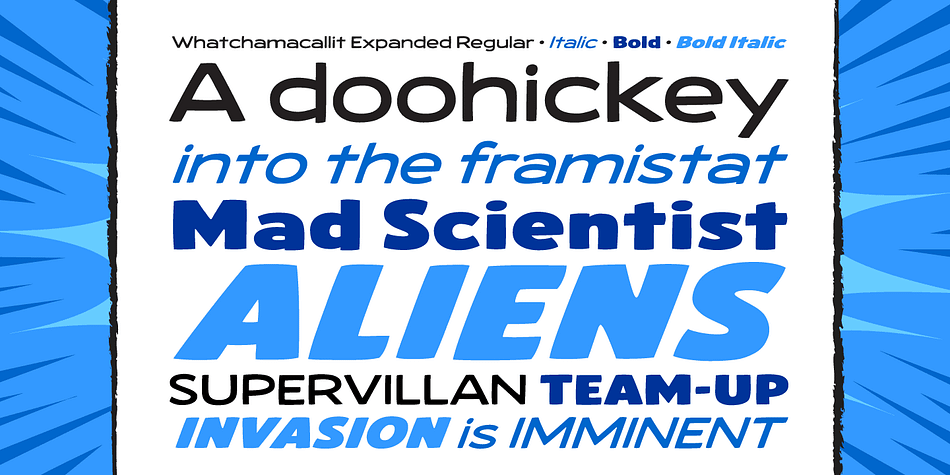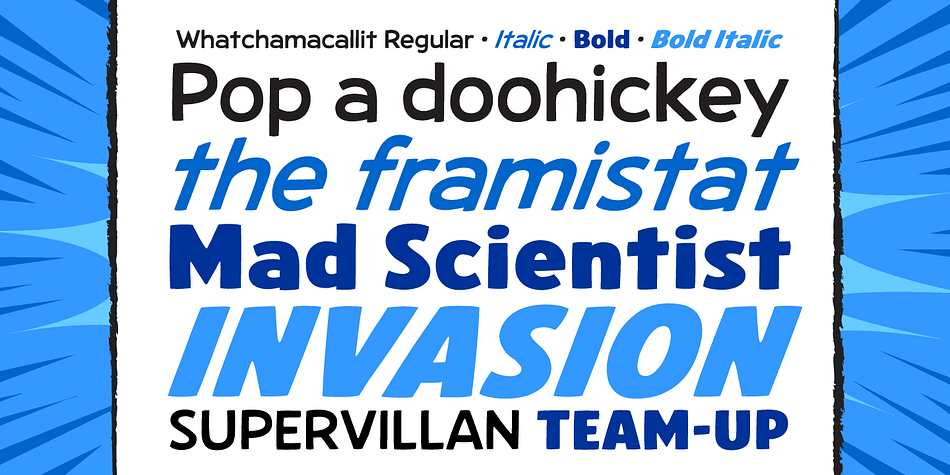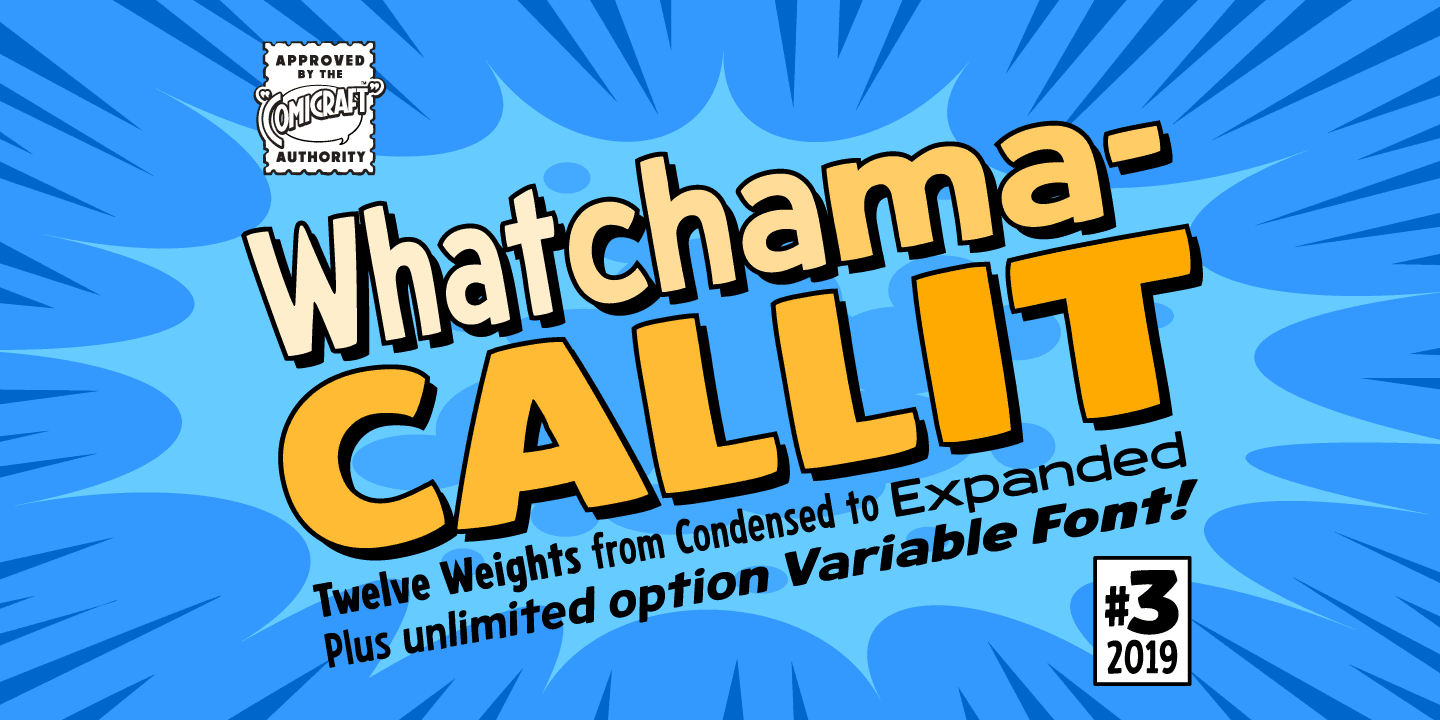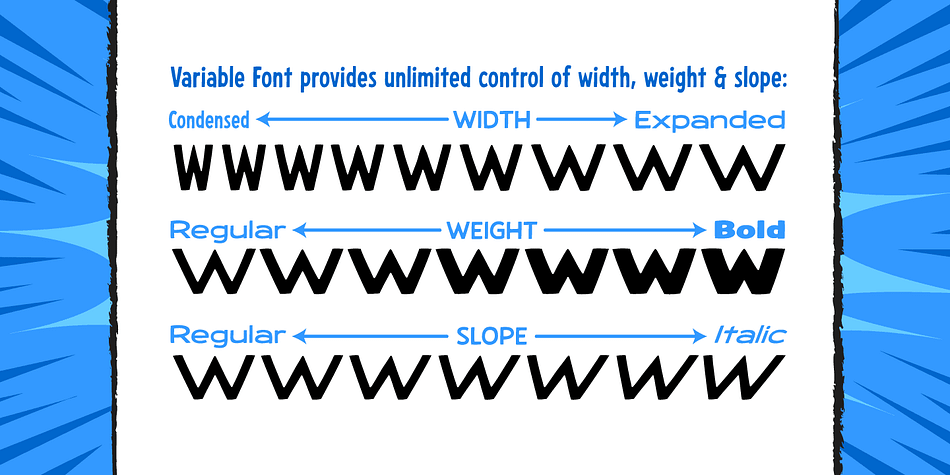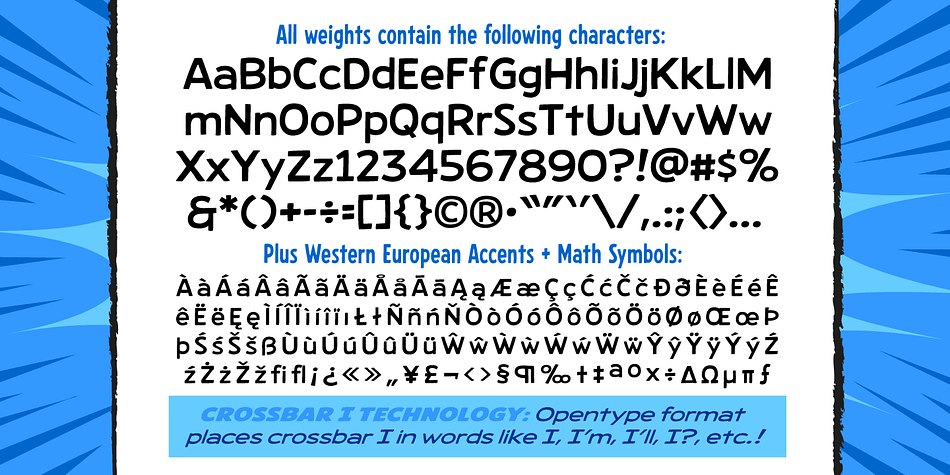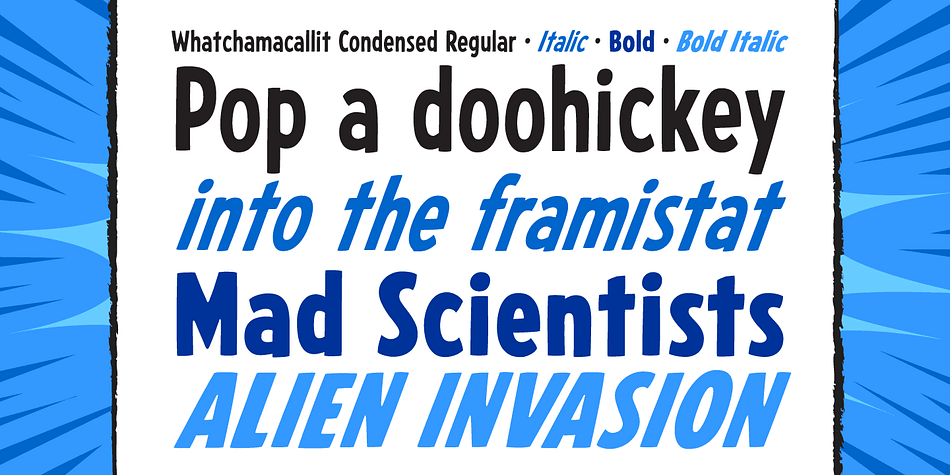
Designed by John Roshell, Whatchamacallit is a hand display and sans serif font family. This typeface has thirteen styles and was published by Comicraft.
We popped the Doohickey into the Framistat and out popped this Whatchamacallit! Is it fat? is it thin? Is it tall? Is it short? Is it light? Is it heavy? Is it condensed?! is it expanded?! Yes, yes, yes and yes—It’s all of the above and more!
Our resident mad scientist John “Mr. Fontastic” Roshell has developed a single contraption that can handle any design emergency, from crimelords to supervillain team-ups to alien invasions. Whatchamacallit is a friendly and readable sans-serif, inspired by some of our all-time favorites—Gill Sans, Futura, Venus and Antique Olive. But, like its machinery-contraption namesakes Doohickey and Framistat, Whatchamacallit has a lively personality—the strokes are a little wavy, the ends a bit bulbous, and the circles are like little loaves of bread, rising in the Whatchamacallit’s oven… delicious!
Whatchamacallit includes twelve versatile weights, as well as a Variable Font which allows you to select from a continuous range of styles from Regular to Bold, Upright to Italic, and Condensed to Expanded.